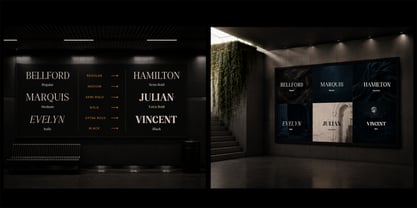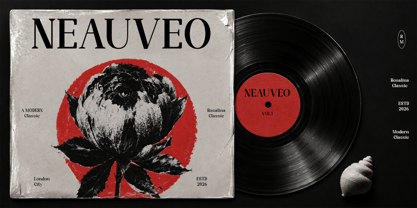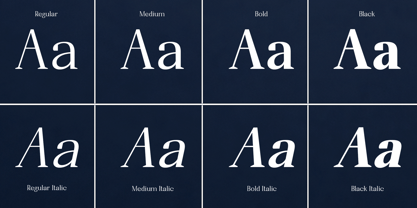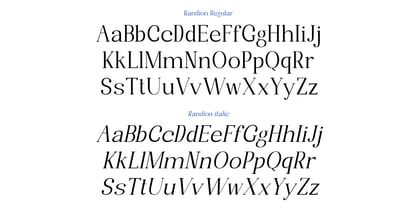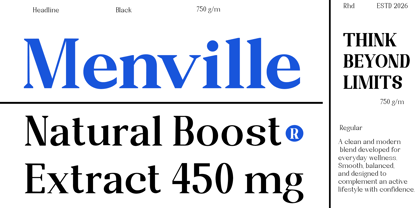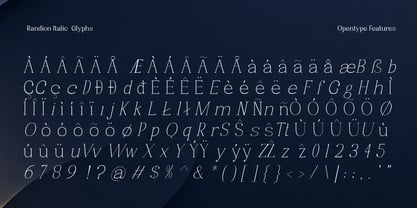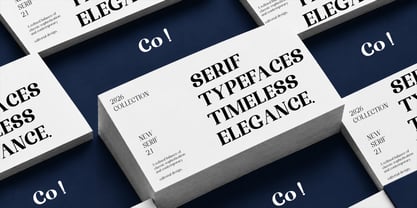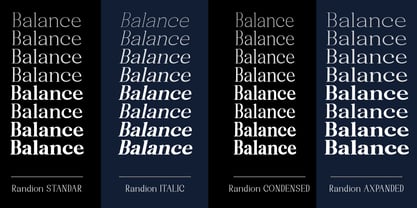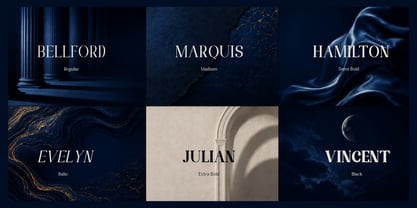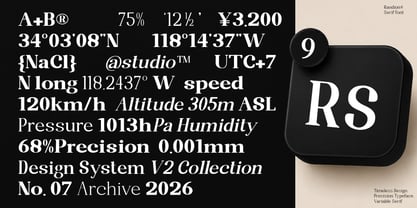
Randion Serif Family
by Rhd Studio
The Randion Serif Family Font Family was designed by Rahmad Rizky and published by Rhd Studio. Randion Serif Family contains 26 styles. More about this family
Randion Variable is a refined serif typeface family created to deliver timeless elegance with exceptional versatility. Built for modern designers, it combines classical sophistication with contemporary precision, offering a complete collection of 54 carefully crafted styles alongside a powerful Variable Font for maximum creative flexibility. Every letter has been thoughtfully designed with graceful curves, balanced proportions, and elegant contrast, resulting in a typeface that feels luxurious, distinctive, and effortlessly readable. Whether used for premium branding, fashion editorials, luxury packaging, logos, magazine layouts, book covers, wedding stationery, or sophisticated digital content, Randion adapts beautifully to projects of every scale. The extensive family allows designers to move seamlessly from delicate, refined typography to bold, impactful headlines while maintaining a consistent and recognizable aesthetic throughout every design. Inspired by the enduring beauty of classic serif typography and reimagined for today's creative industry, Randion provides the perfect balance between heritage and innovation. Designed to elevate visual identities with confidence and style, Randion Variable is more than a typeface—it is a complete design companion that helps transform ideas into elegant, memorable, and professional visual experiences
Designers: Rahmad Rizky
Foundry: Rhd Studio